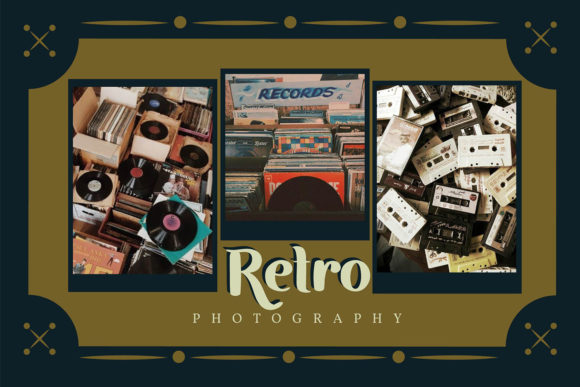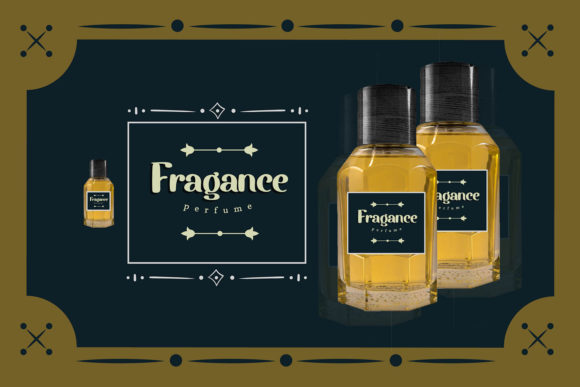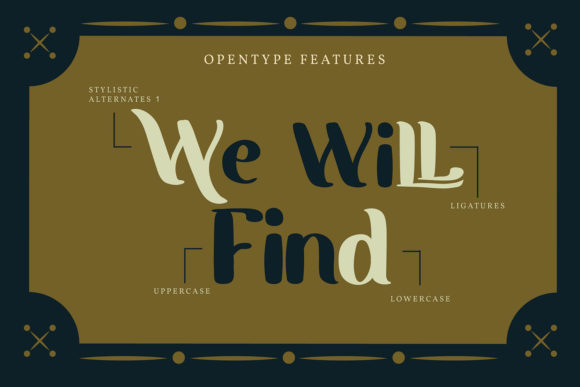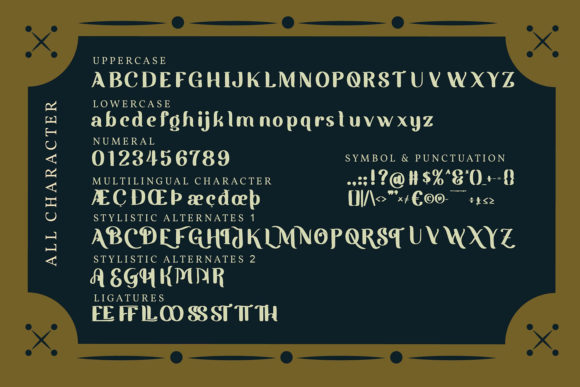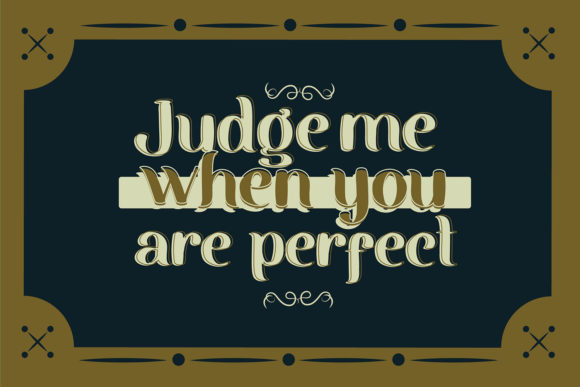
Easterwin Font: Elevate Your Designs with a Touch of Classic Elegance
In the world of typography, few fonts manage to capture the essence of classic elegance and vintage charm as effectively as Easterwin. This beautiful display font has been making waves among designers and crafters alike, and for good reason. With its distinct look and versatile application, Easterwin is quickly becoming a go-to choice for a wide range of design projects. In this article, we’ll dive into the details of the Easterwin font, exploring its features, uses, and what makes it a valuable addition to any designer’s toolkit.
The Distinctive Charm of Easterwin
Easterwin is more than just a font; it’s a statement piece. Its elegant and distinct appearance immediately captures attention, making it perfect for projects where you want to leave a lasting impression. Whether you’re designing a logo, crafting a brand identity, creating invitations, or working on wedding designs, Easterwin brings a level of sophistication and charm that’s hard to match.
One of the standout features of Easterwin is its classic and vintage feel. In an era where modern and minimalist designs often dominate, Easterwin offers a refreshing departure from the norm. Its intricate details and unique character set evoke a sense of nostalgia, making it ideal for designers looking to add a touch of timeless elegance to their work.
Easterwin’s versatility is another one of its major strengths. This font isn’t limited to just one or two specific uses; rather, it can be applied across a broad spectrum of design projects. Here are just a few examples of where Easterwin can make an impact:
- Logos and Branding: Create a memorable brand identity with Easterwin’s distinctive and elegant style.
- Invitations and Stationery: Add a touch of class to your invitations, greeting cards, and other stationery items.
- Wedding Designs: From wedding invitations to ceremony decor, Easterwin can help set the tone for a sophisticated and stylish event.
- Social Media Posts: Stand out on social media with Easterwin’s unique and eye-catching text.
The font’s adaptability makes it a valuable asset for designers who work on a variety of projects or for businesses looking to establish a consistent brand voice across different platforms.
Easterwin isn’t just beautiful; it’s also practical. The font comes with PUA (Private Use Area) encoding, which means you get easy access to all the glyphs and swashes. For designers, this feature is a game-changer. It allows for greater flexibility and creativity, enabling you to experiment with different combinations of characters and decorative elements without any hassle.
PUA encoding essentially unlocks the full potential of the Easterwin font, giving you the tools you need to create truly unique and personalized designs. Whether you’re looking to add a bit of flair to your text or craft an intricate design, Easterwin with PUA encoding has got you covered.
Why Designers and Crafters Love Easterwin
So, why has Easterwin become a favorite among designers and crafters? The answer lies in its perfect blend of style, versatility, and practicality. Here are a few reasons why Easterwin stands out:
- Elegant Aesthetic: Easterwin’s classic and vintage look adds a touch of elegance to any design.
- Wide Range of Applications: From logos and branding to social media posts, Easterwin can be used in a variety of contexts.
- Easy to Use: With PUA encoding, accessing and using the font’s features is straightforward.
For designers and crafters looking to elevate their work and stand out from the crowd, Easterwin offers a simple yet effective solution. Its unique charm and versatility make it an excellent choice for anyone aiming to add a bit of sophistication and personality to their designs.
Easterwin is more than just a font; it’s a design tool that can transform your projects with its classic elegance and vintage charm. Its versatility, combined with the practical benefits of PUA encoding, makes it an invaluable resource for designers and crafters. Whether you’re working on a logo, branding, invitations, or social media content, Easterwin provides the perfect blend of style and functionality.
As you explore the possibilities with Easterwin, you’ll discover why it’s quickly becoming a favorite among design professionals. With Easterwin, you can bring a touch of timeless elegance to your work, making your designs truly unforgettable.